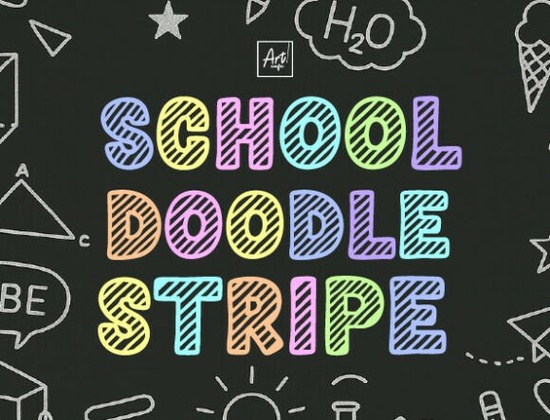
If you’re looking for a font that brings handwritten chalkboard energy straight into your digital toolbox, School Doodle Stripe deserves a closer look. This playful display font pairs thick letterforms with diagonal stripe patterns, creating the look of doodled markers on a classroom board. It’s the kind of typeface that instantly adds warmth, creativity, and a school-inspired touch to your projects without ever feeling childish or messy.
What kind of creative work suits School Doodle Stripe best?
This font shines in projects where personality matters more than formal perfection. Print-on-demand sellers often use it for teacher appreciation designs, student reward stickers, or back-to-school merchandise. Its bold weight and striped fill hold up well on tote bags, coffee mugs, and hoodies even when scaled down for pocket prints or up for full-bleed graphics.
Scrapbookers and card makers lean on the font to label photo albums, create classroom party invites, and decorate lunchbox notes. Because the stripes mimic actual drawing motions, the text feels handmade and approachable. Small businesses with an educational or family-friendly brand voice use it in social media graphics, workshop flyers, and logo badges for children’s clubs.
Does it work for digital and print projects equally well?
Yes as long as you treat it as a display font rather than body copy. The striped texture reads clearly at larger sizes, so it’s ideal for headlines, YouTube thumbnails, worksheet titles, and book covers. When you shrink it below 18 points, the stripe detail may blur in print, so keep it big on posters or classroom wall art. Designers working in Canva, Cricut Design Space, or Adobe Photoshop can simply type, pick a color, and let the built-in pattern do the decorating.
If you need a font that feels like a chalkboard sketch without actually requiring white-on-green effects, this is a direct shortcut. You don’t have to overlay textures or hunt for the right brush pack the stripes are already inside the letters.
How do you choose color combinations for a striped display font?
Because the stripes are part of the glyph design, your color choice will tint the whole letter evenly. A single solid color results in a neat two-tone stripe effect (like a colored marker on a chalkboard). For multi-color projects, try duplicating your text layer, shifting the hue, and applying a slight offset to create a rainbow doodle style. Pastel neons, primary reds and blues, and classic chalk white on dark backgrounds all feel right at home.
To keep the school vibe authentic, pair it with solid sans-serif fonts for subheadings. A clean rounded typeface balances the busy stripes and keeps your layout readable. Avoid overcomplicating let the font do the heavy lifting.
Which other decorative fonts pair well with School Doodle Stripe?
When you’re building a varied toolkit, it helps to have a few distinct styles that share a handmade, decorative quality. For beach and summer themes, you might swap to a soft, wave-like script that feels gentle and coastal something like Sandy Wink Sea. That font’s relaxed curves contrast nicely with the bold structure of School Doodle Stripe, giving you a pair that can shift between school days and holiday graphics.
If you need a stitched embroidery look for sewing-themed projects, Willow Stitch brings thread textures that feel crafty and cozy. For a rugged Western feel, Rope Cowgirl delivers a lasso-inspired design with rope-like letterforms. When you’re designing for leather goods or cowboy-themed events, a twisted rope font can be the detail that ties everything together.
On the edgier side, Alpha Spike offers a sharp, aggressive style that works for gaming logos or streetwear graphics. A spiked athletic font like that pairs well with a varsity motif and if you’re already in that headspace, Leopard Varsity combines animal print with team-spirit lettering for a wild look. Varsity-inspired fonts with leopard texture are popular for cheerleading merchandise and bold brand accents.
Is this font suitable for teachers and educational small businesses?
Absolutely. Many teacher-creators use School Doodle Stripe on worksheets, bulletin board labels, classroom calendars, and name tags. The stripes make it easy to color-code subjects or groups. Since the font is hand-drawn in feel, it brings warmth that a typical comic sans alternative can’t match. Educational small businesses tutoring services, learning centers, speech therapy offices can use it in their logo lockups or email newsletter headers to appear both playful and professional.
When you sell digital downloads on Creative Fabrica or Etsy, including previews with this font can help your products stand out among flat, generic text. A simple product cover with a single-word title in this font often looks finished and intentional.
What about crafting tools like cutting machines and sublimation?
Crafters regularly add School Doodle Stripe to their Cricut and Silhouette libraries. The solid striped design cuts cleanly as long as you don’t go too tiny. It also transfers well in sublimation, retaining the stripe pattern nicely on polyester shirts and ceramic mugs. When designing with adhesive vinyl, weeding is manageable because the stripes are integrated you don’t need to piece together separate shapes. A quick test cut on scrap material before a full run is always wise.